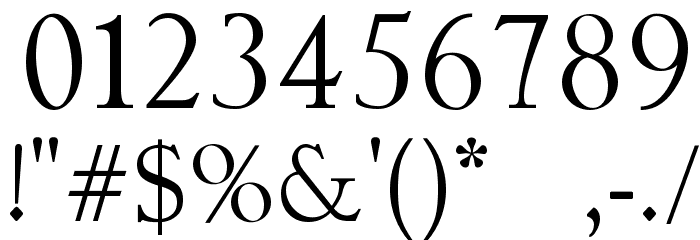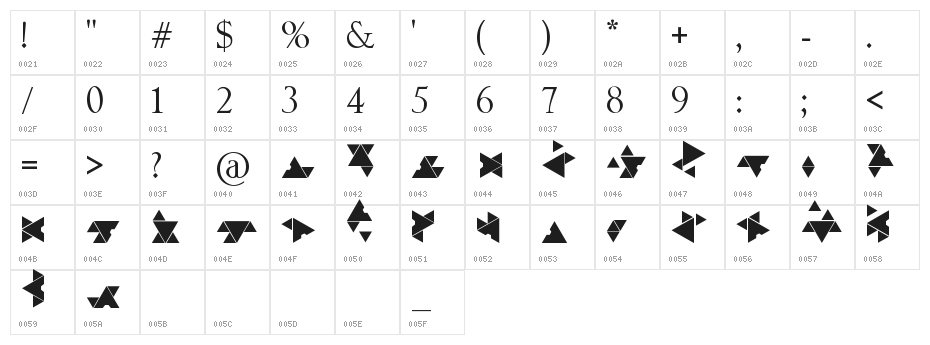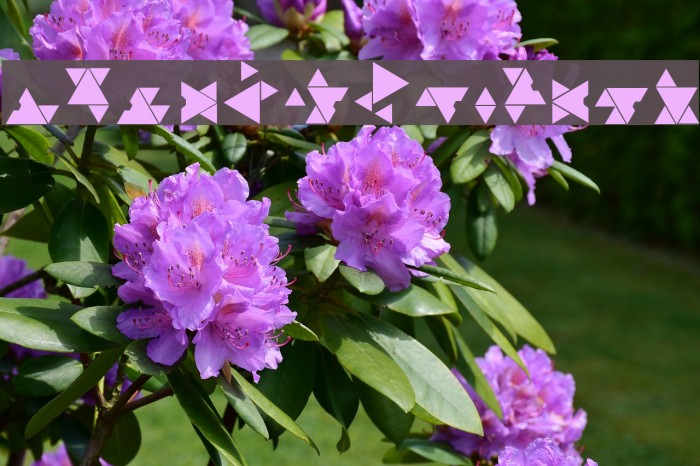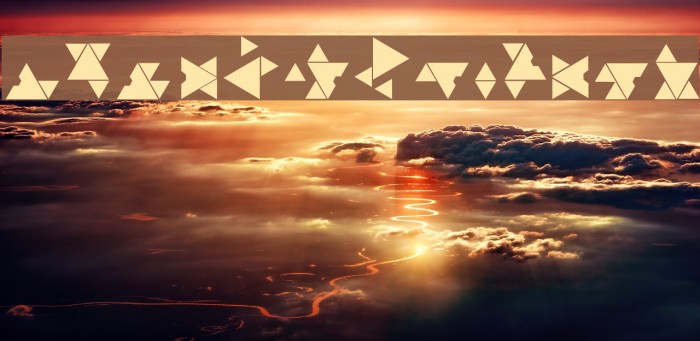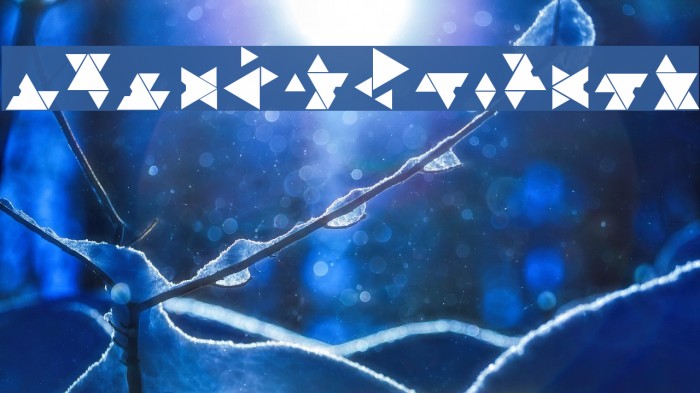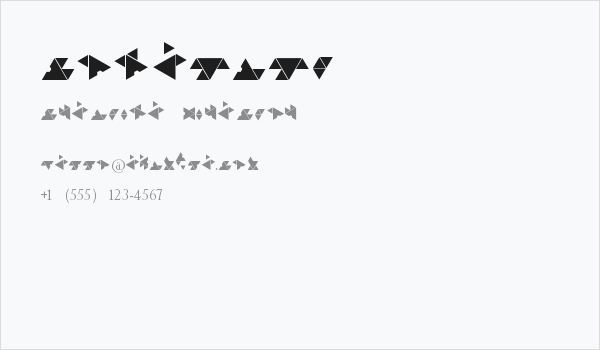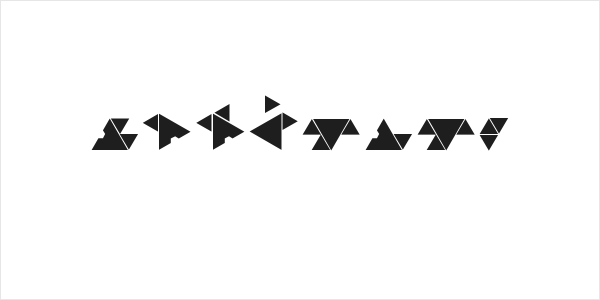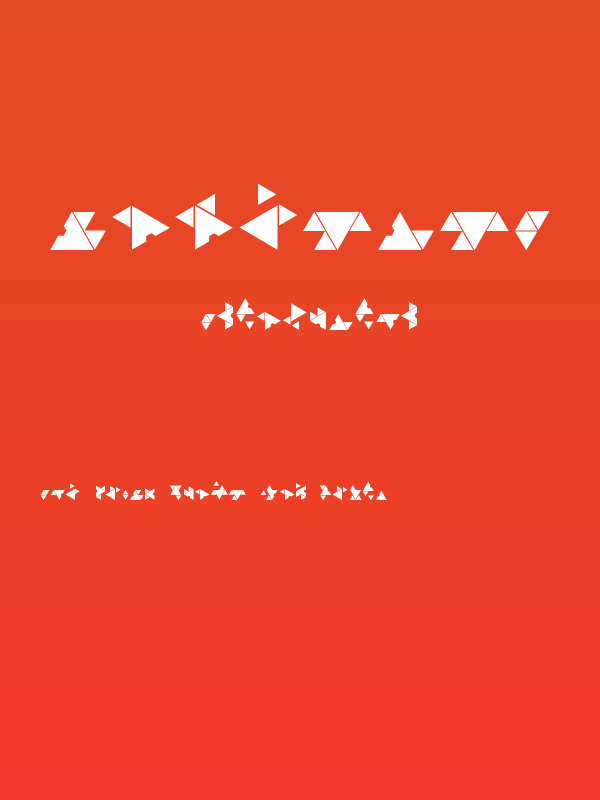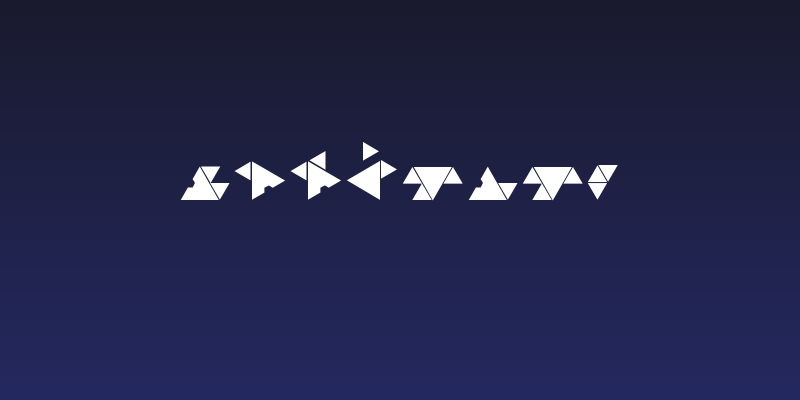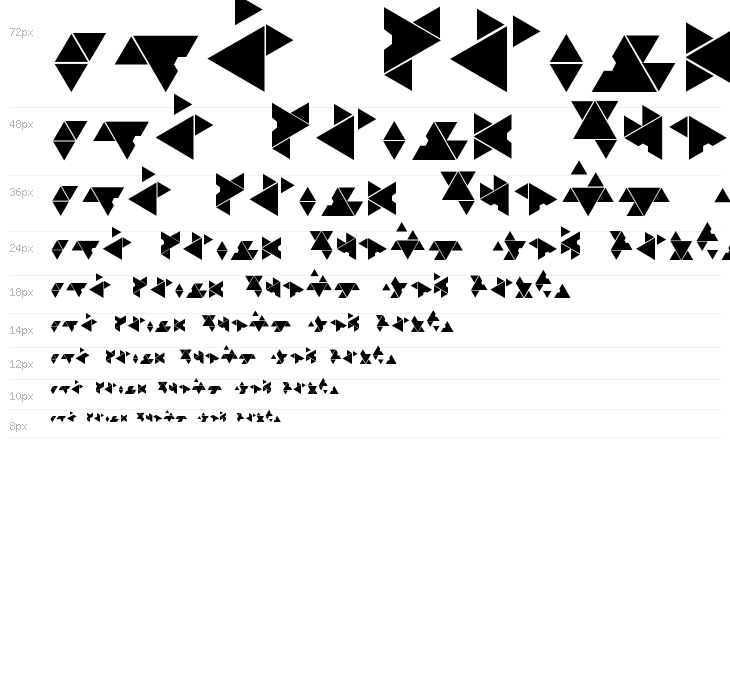
Covenant Font
Covenant Description
This font features a classic serif style with elegant and refined strokes. The numerals are clean and well-proportioned, offering a timeless appeal. The special characters are distinct and maintain the overall aesthetic of the typeface. The font's design is suitable for conveying sophistication and professionalism, making it ideal for formal documents and branding. Its balanced weight and contrast ensure readability while maintaining a stylish appearance.
Overall StyleClassic
Use CaseHeadlines, Body text, Logos
Proposed ProjectsIdeal for formal documents, branding, editorial design, and luxury product packaging.